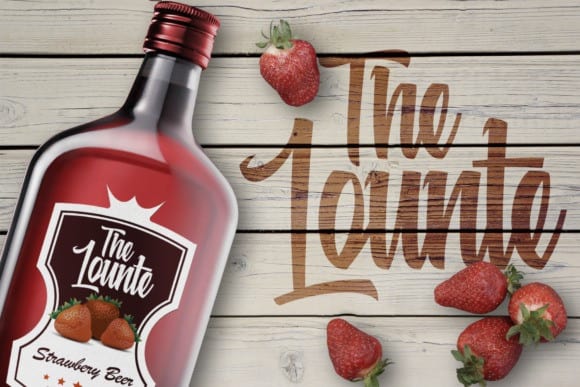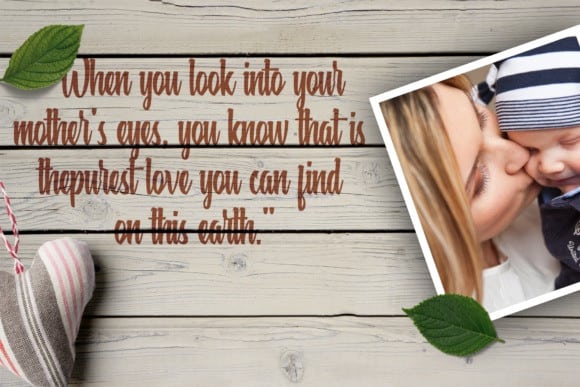
Beastic Script Font
Say hello to Beastic Script Font. It’s a modern look of calligraphy script font, modern and fashionable. This elegant font is legible and looks great as a headline or in body text! It’s designed and shared by fontkong. It’s a beautiful script font, carefully handcrafted to become a true favorite. This font is the perfect fit for all of your logos, branding, social media, and crafty DIY projects.
This font will perfect for many different project for blogging, social media, branding, wedding invites, cards etc. Including ligatures, uppercase and lowercase, punctuation and multiple languages support.